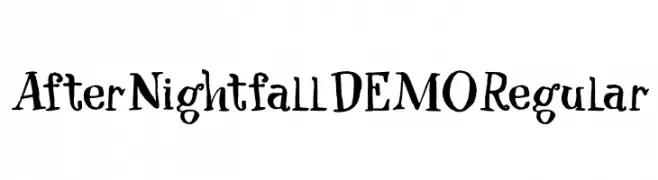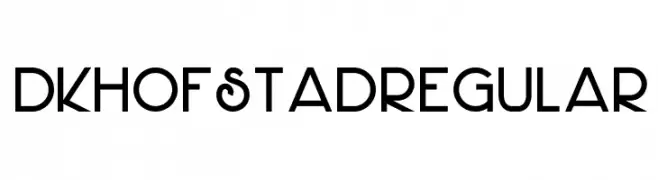
( AdultHuman - Alex - twitter.com/AdultHumanType )
A playful, hand-drawn font with whimsical, irregular strokes.
( Alessandro Caminiti - www.behance.net/AlessandroCaminiti )
A geometric, angular font with hexagonal motifs and a futuristic style.
( Alex Manlangit - www.alexmanlangit.com )
A modern, geometric font with angular lines and a sleek, dynamic style.
( Ambyr Gregg - bandogora.tumblr.com )
A modern, geometric font with thin strokes and angular design.
( Brixdee - jack-oatley.com/ )
A modern, geometric font with circular and abstract elements.
( Christian Munk - fontstruct.com/fontstructors/25776/cmunk )
A geometric, angular font with a modern, digital style.
( Ekloff Design - ekloff.com )
A modular, grid-based font with a digital, pixelated style.
( Evgeniy Litvin )
A gothic-inspired serif font with sharp, angular serifs and a strong vertical emphasis.
( Hanoded - David Kerkhoff - www.hanodedfonts.com )
A whimsical, hand-drawn font with playful, irregular shapes and unique character.
( Hanoded - David Kerkhoff - www.hanodedfonts.com )
A geometric and modern font with clean lines and angular style.